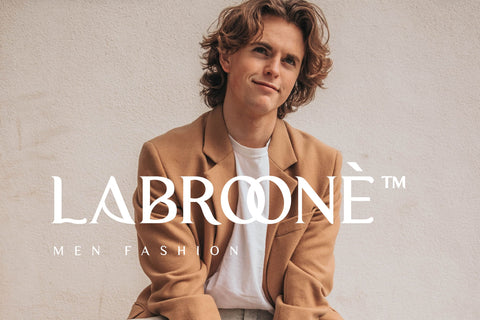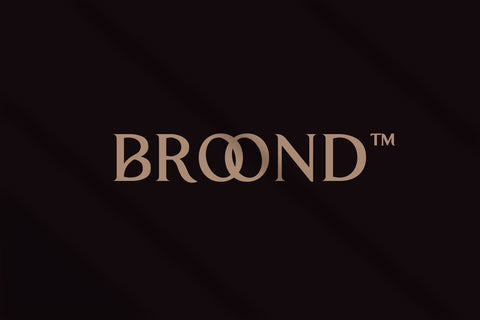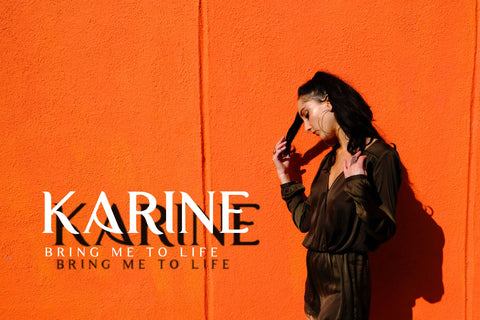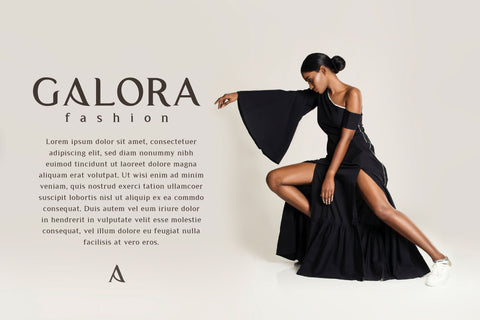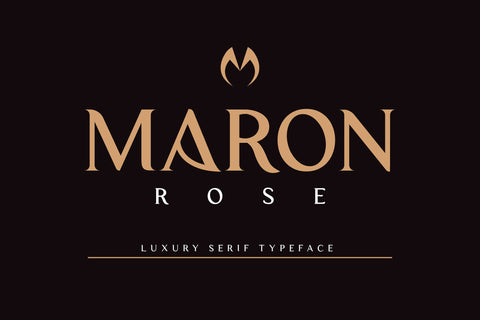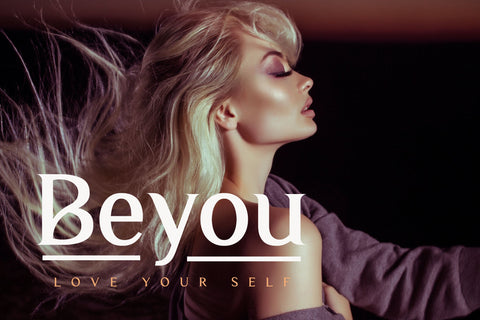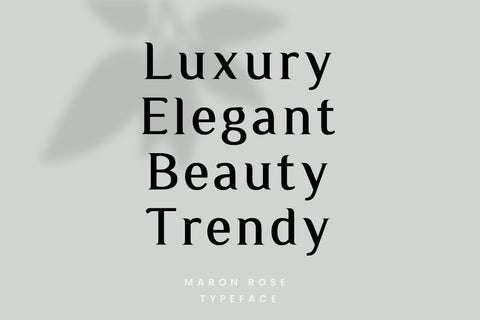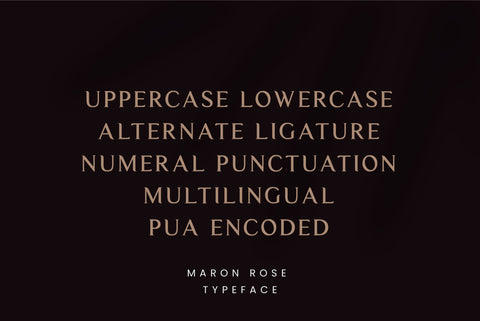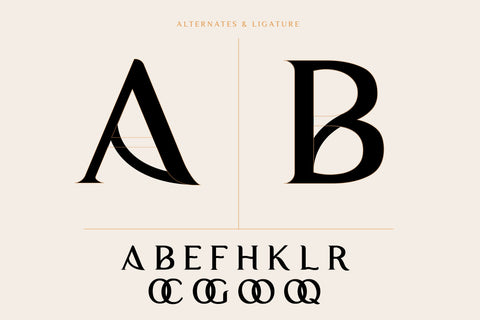
Maron Rose A Luxurious & Stylish Serif Font
Maron Rose is a luxurious and stylish serif font. It will elevate a wide range of crafting ideas, from cards to branding, labels, logos, and much more.
– Uppercase, Lowercase, Numerals & Punctuations
– Ligature & Alternate
– Multilingual support